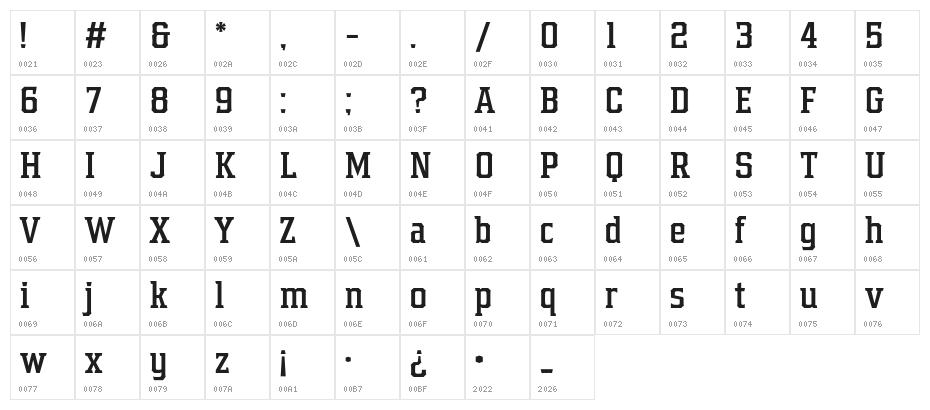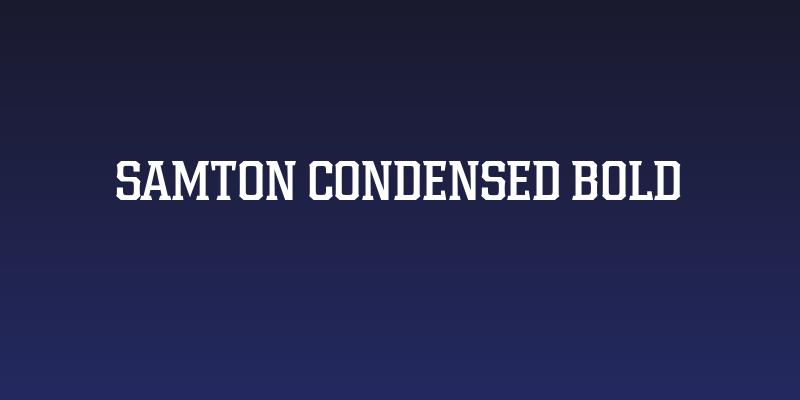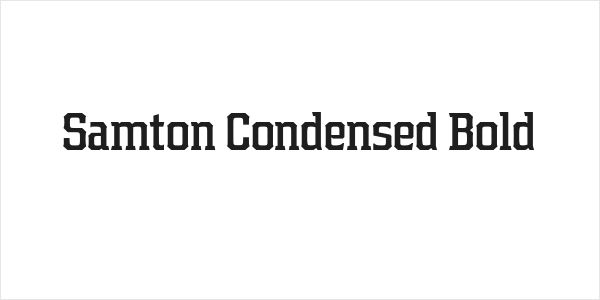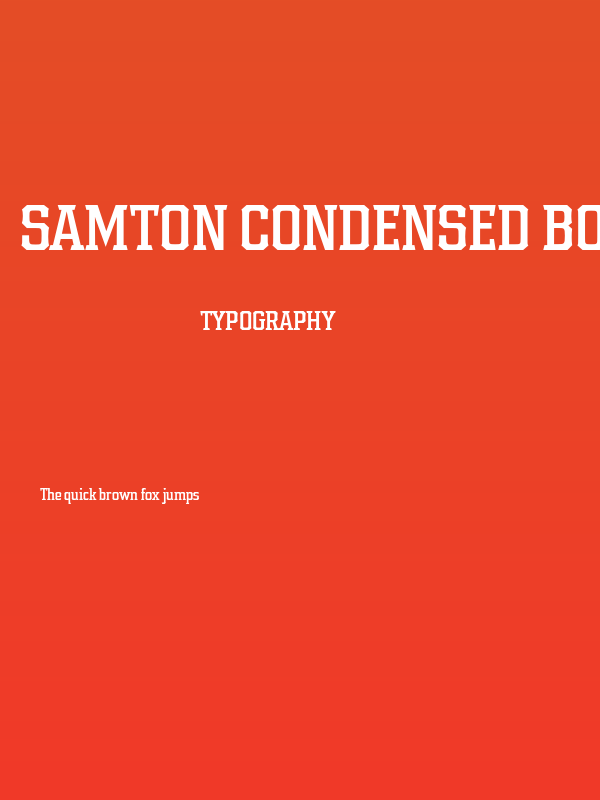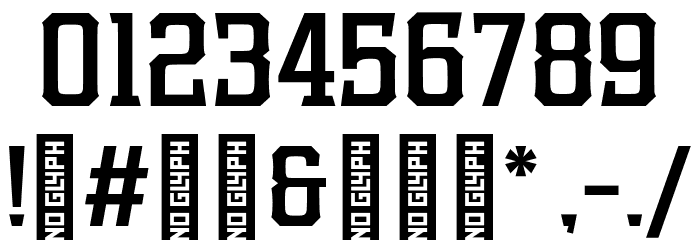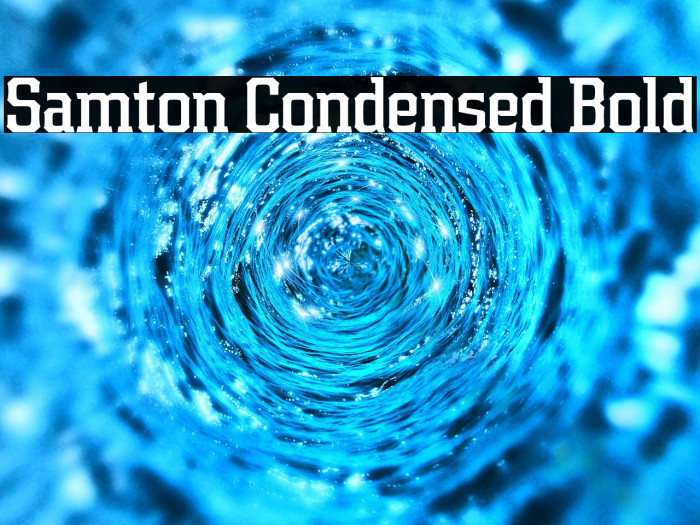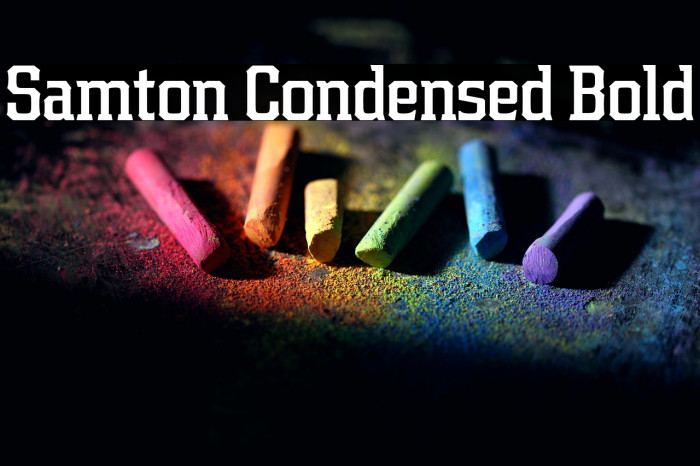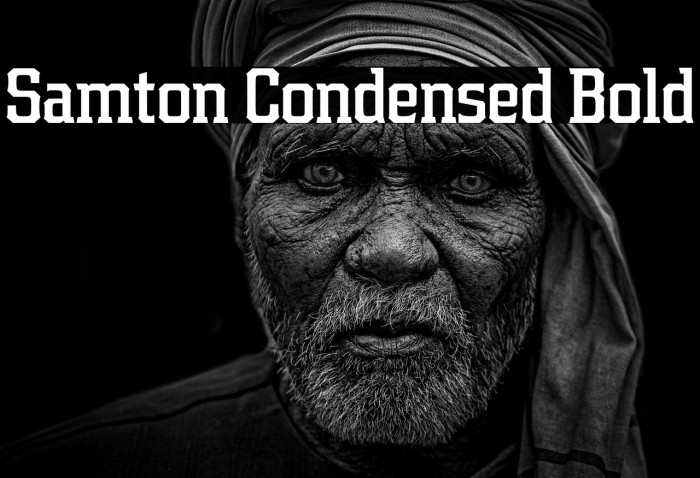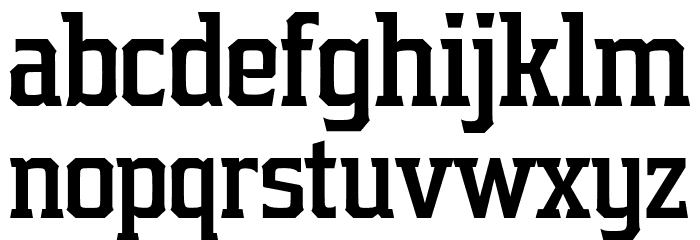
Samton Condensed Bold Font
Samton Condensed Bold Description
This font features a bold and condensed style with a strong, impactful presence. The uppercase and lowercase letters maintain a consistent width, creating a uniform appearance. The strokes are thick and uniform, contributing to a bold look that stands out. The characters have a geometric structure with sharp angles and clean lines, giving it a modern and assertive feel. The numbers are equally bold, matching the style of the alphabet. Special characters are designed to complement the overall aesthetic, maintaining the same thickness and geometric precision. This font is ideal for making a statement in any design project.
| Proposed Projects | Ideal for headlines, posters, branding, and any design requiring a strong visual impact. |